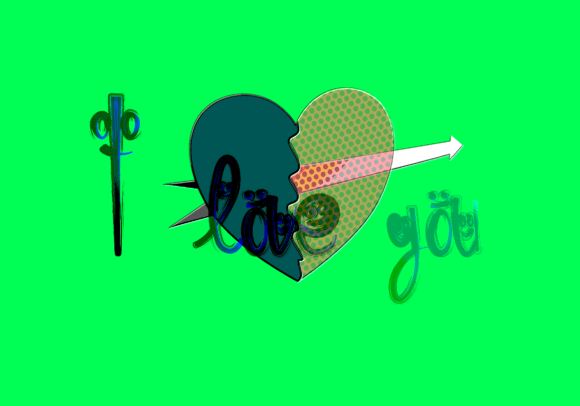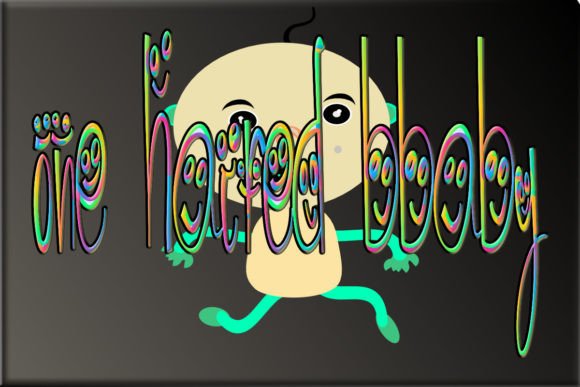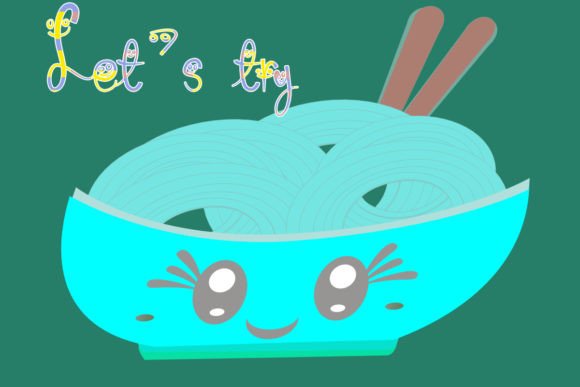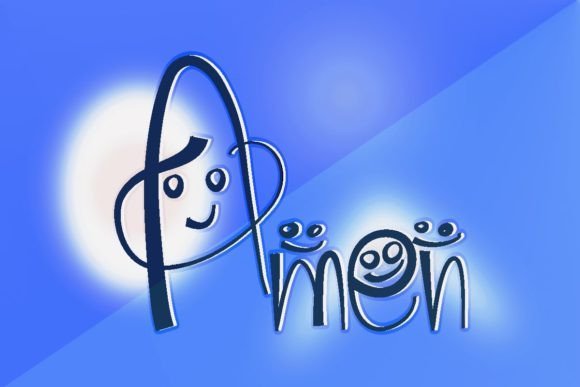
Introduction to Cartoon Modern Font
Cartoon is a cute, jolly, paint-brushed decorative font.
Whimsical and a little bit quirky, this typeface will brighten up each of your designs .
Key Features of Cartoon Modern Font
Why Choose Cartoon Modern Font?
Cartoon Modern Font offers exceptional quality and versatility, making it a valuable addition to your design toolkit. Whether you’re creating for personal projects or commercial use, Cartoon Modern Font delivers professional results.